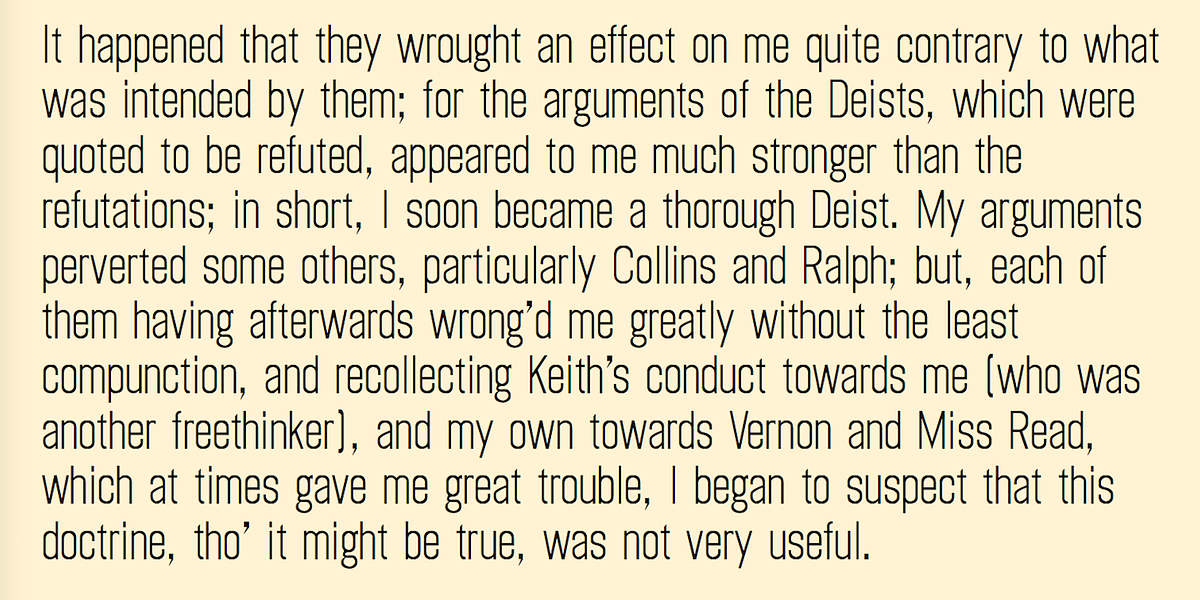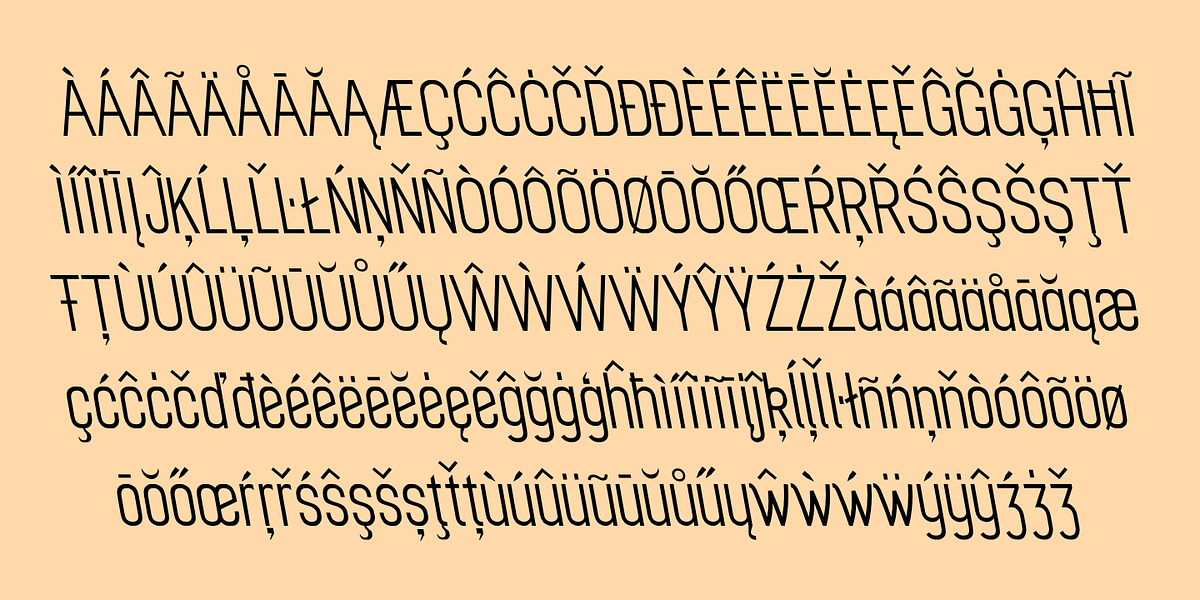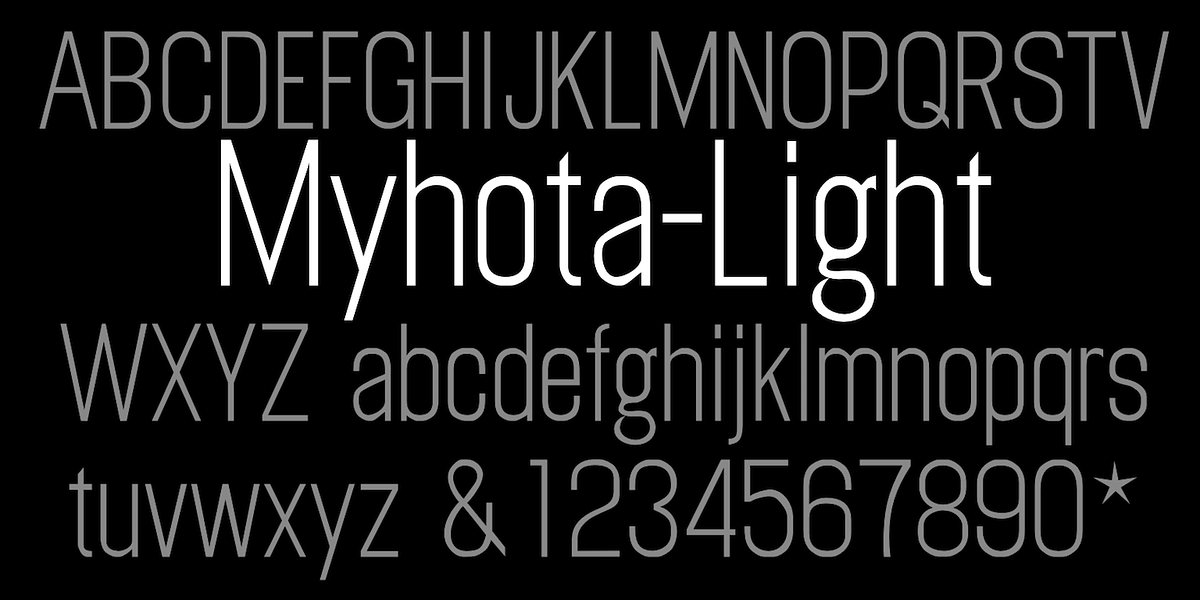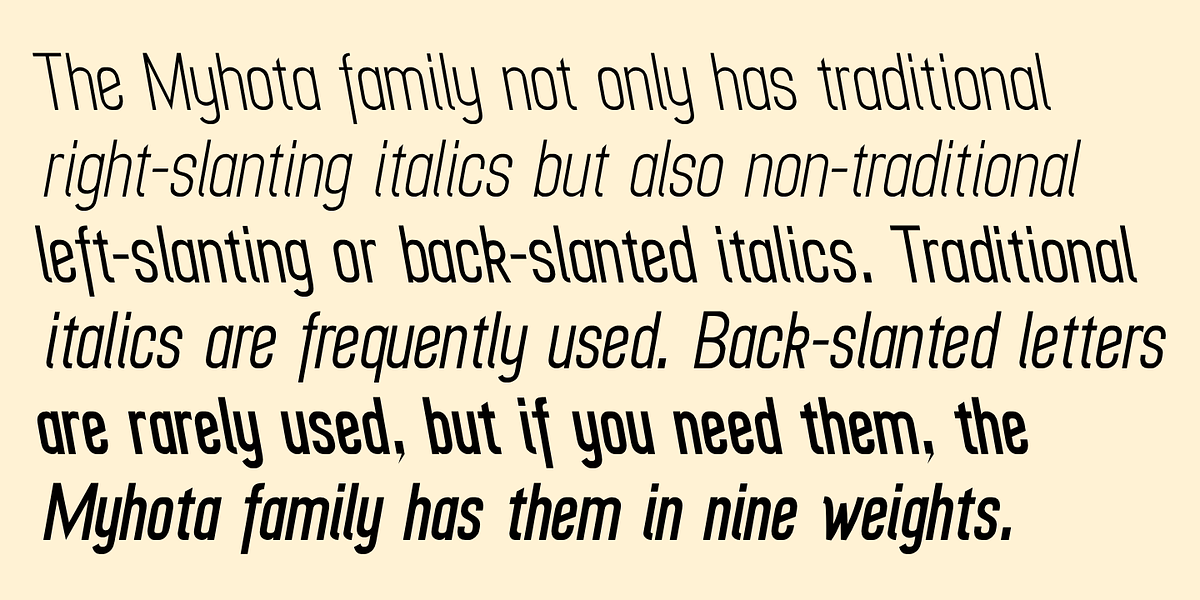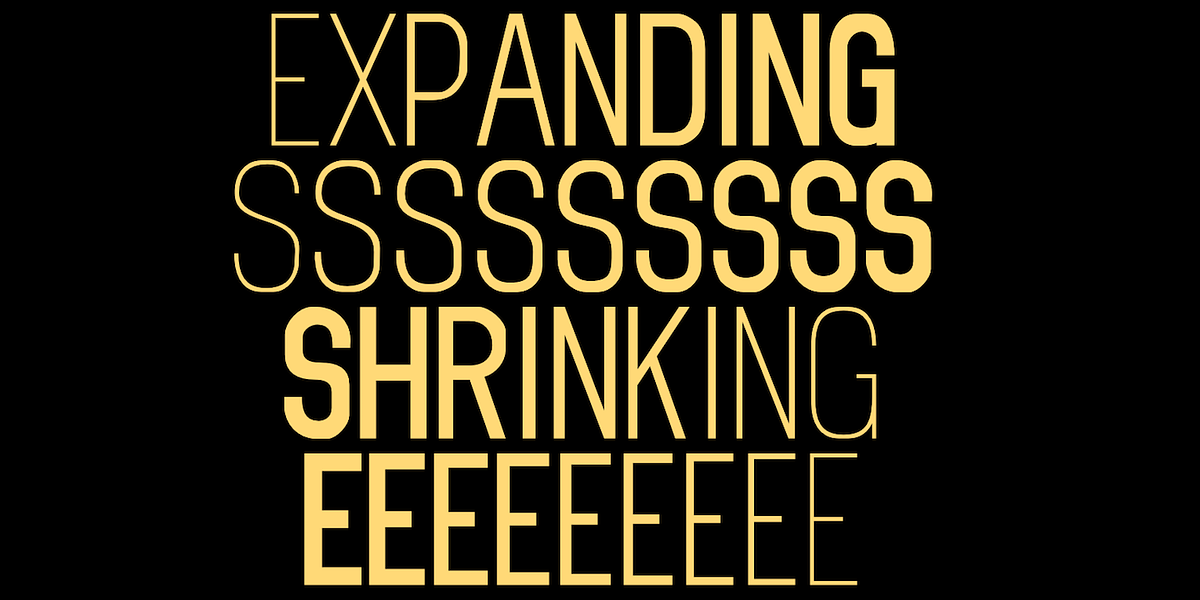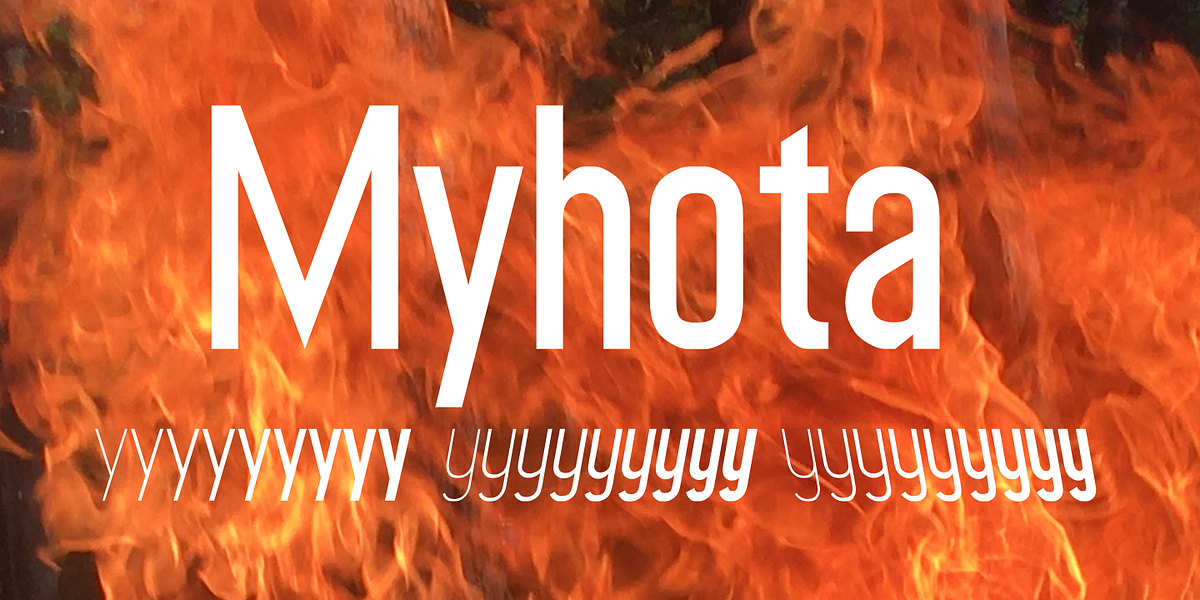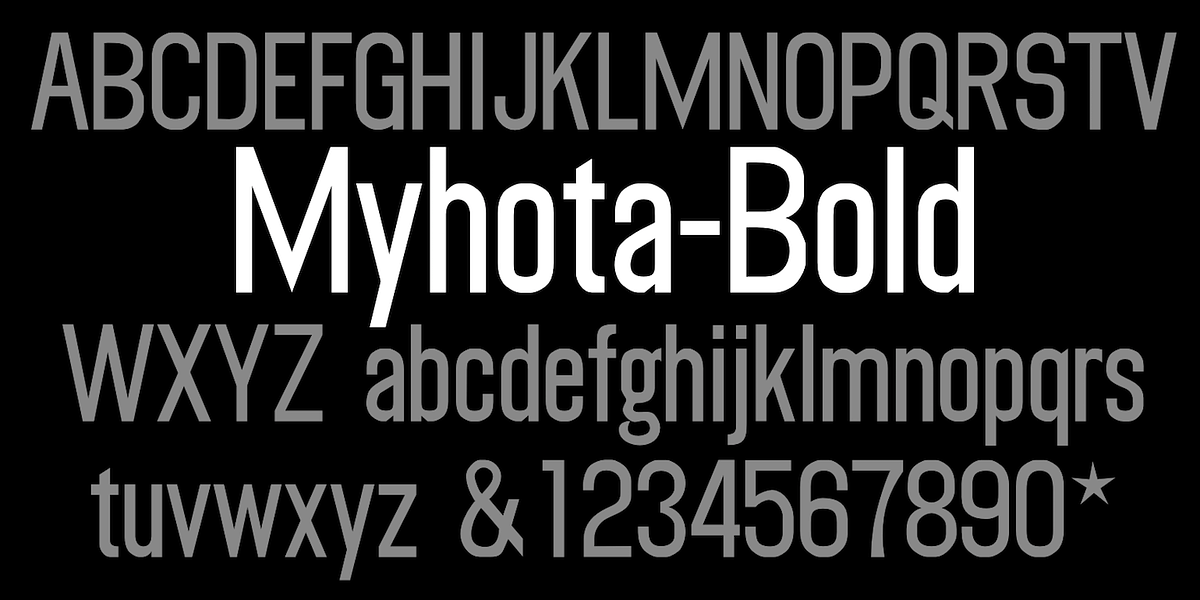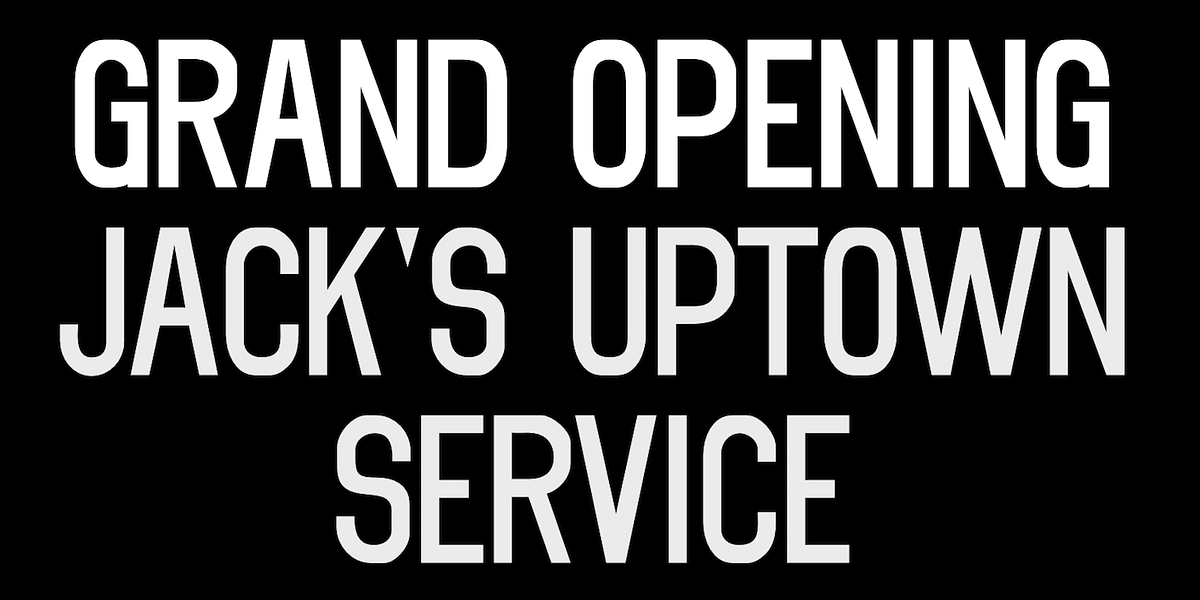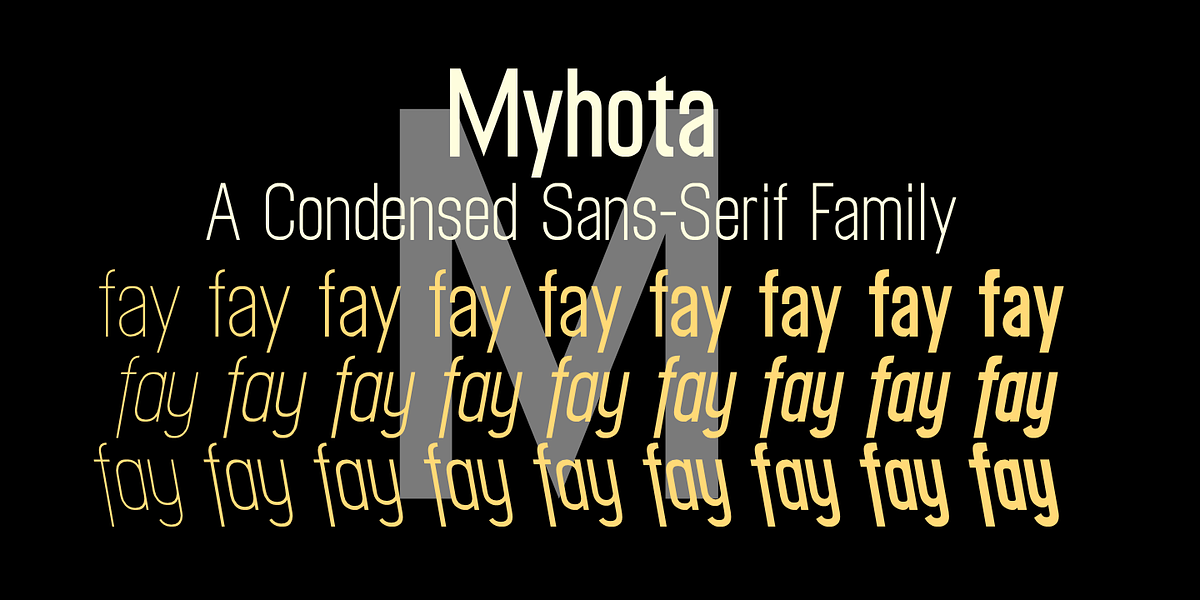
Myhota
Myhota is a condensed sans-serif typeface designed for display purposes. Its high x-height and bold strokes make it stand out in headlines and other prominent text applications. The font family includes a range of weights from light to bold, as well as italic and backslanted styles.